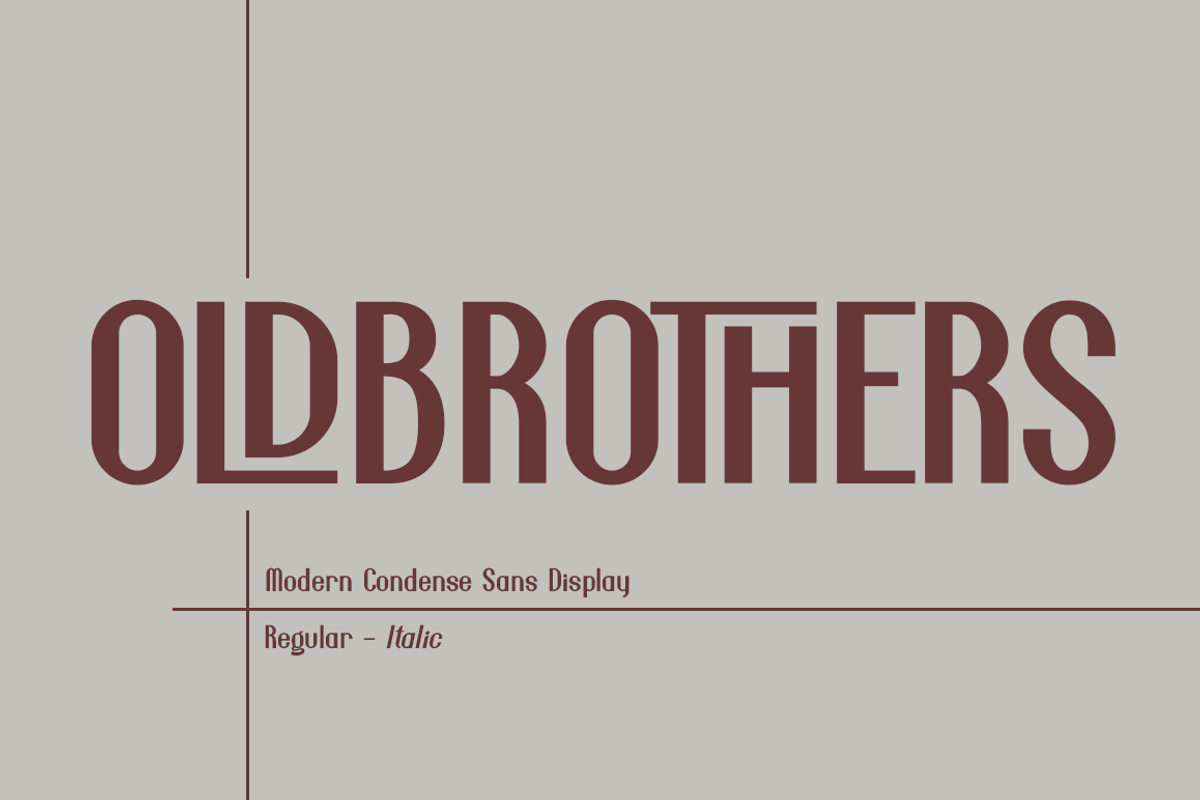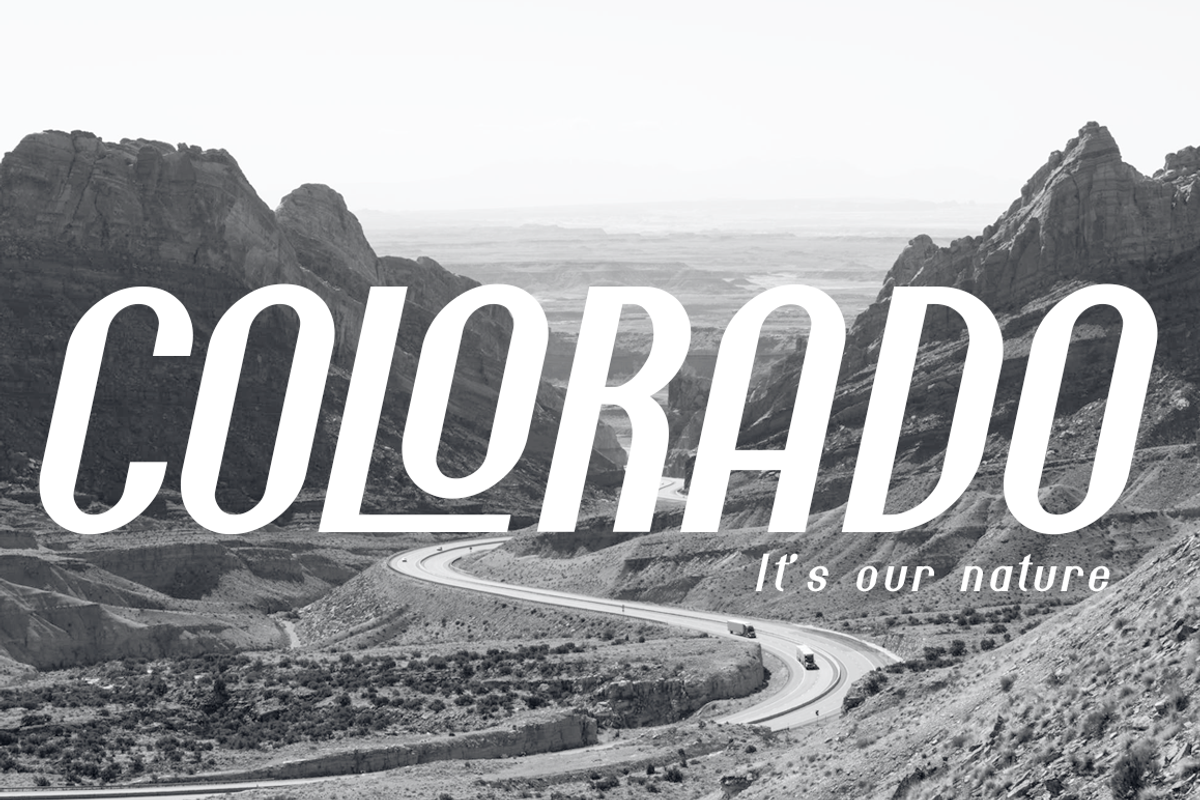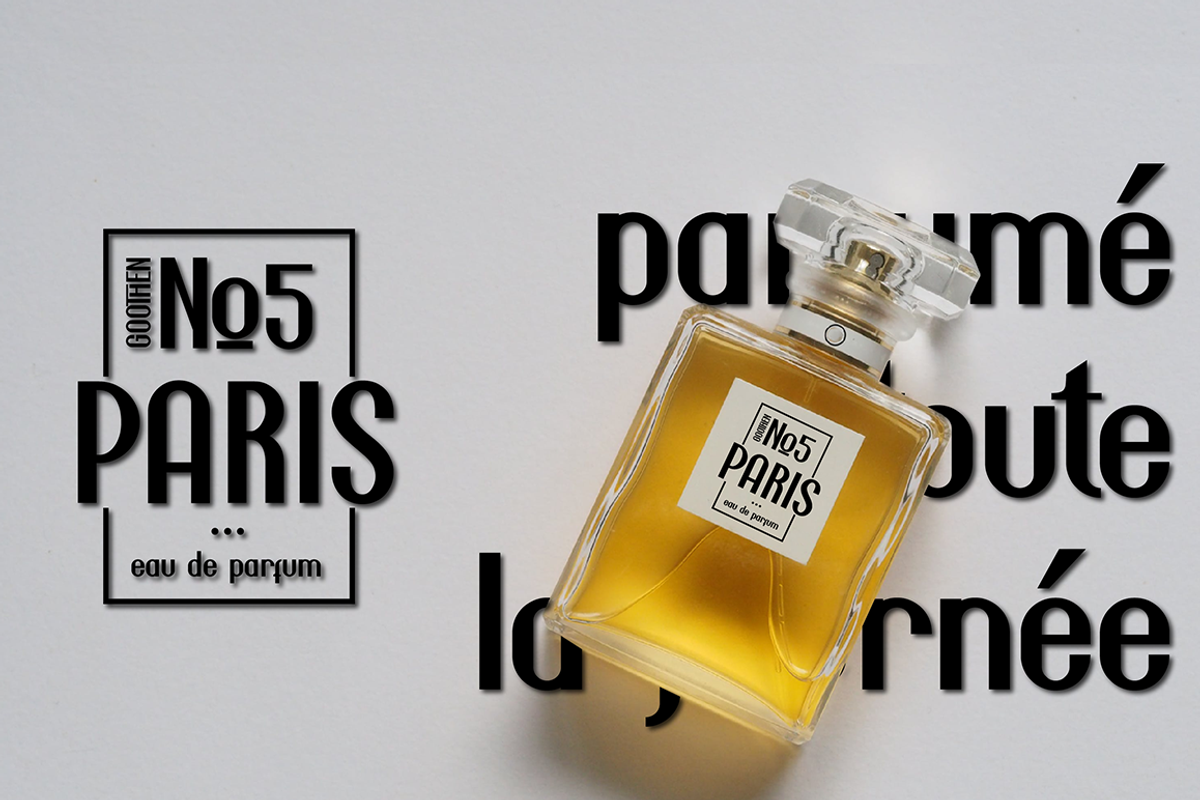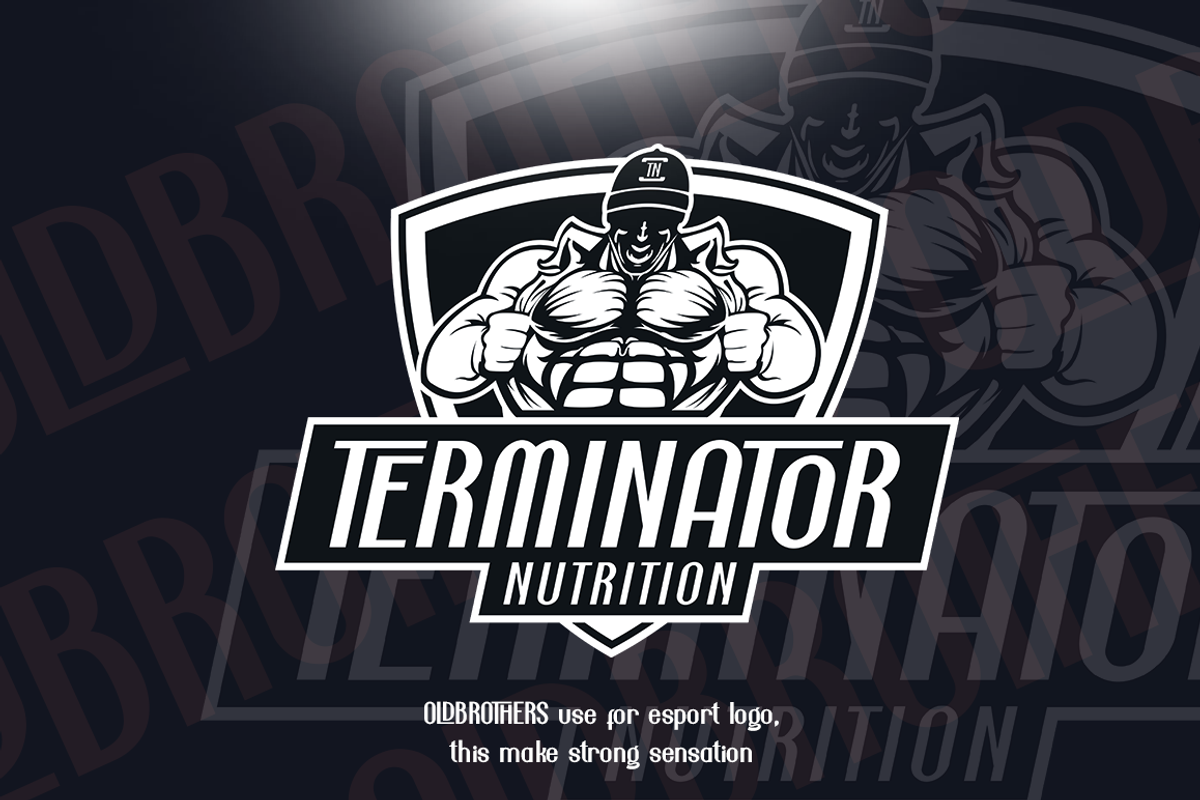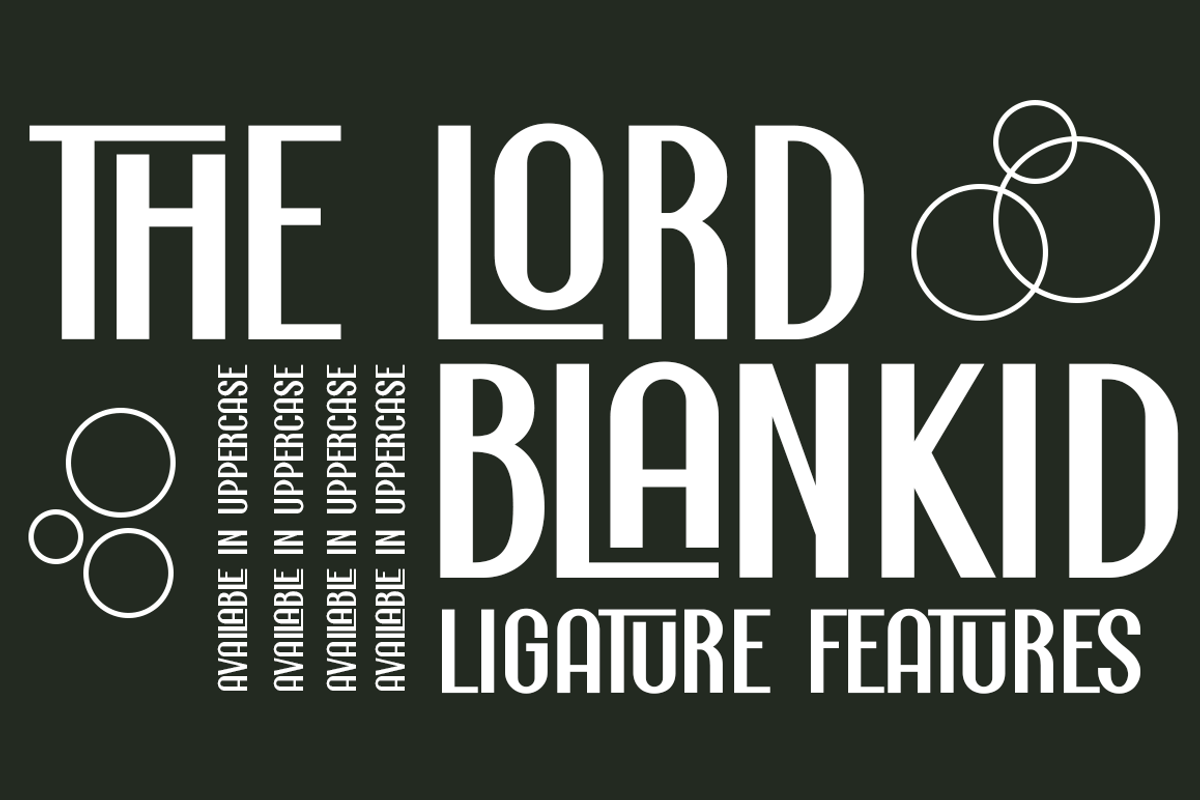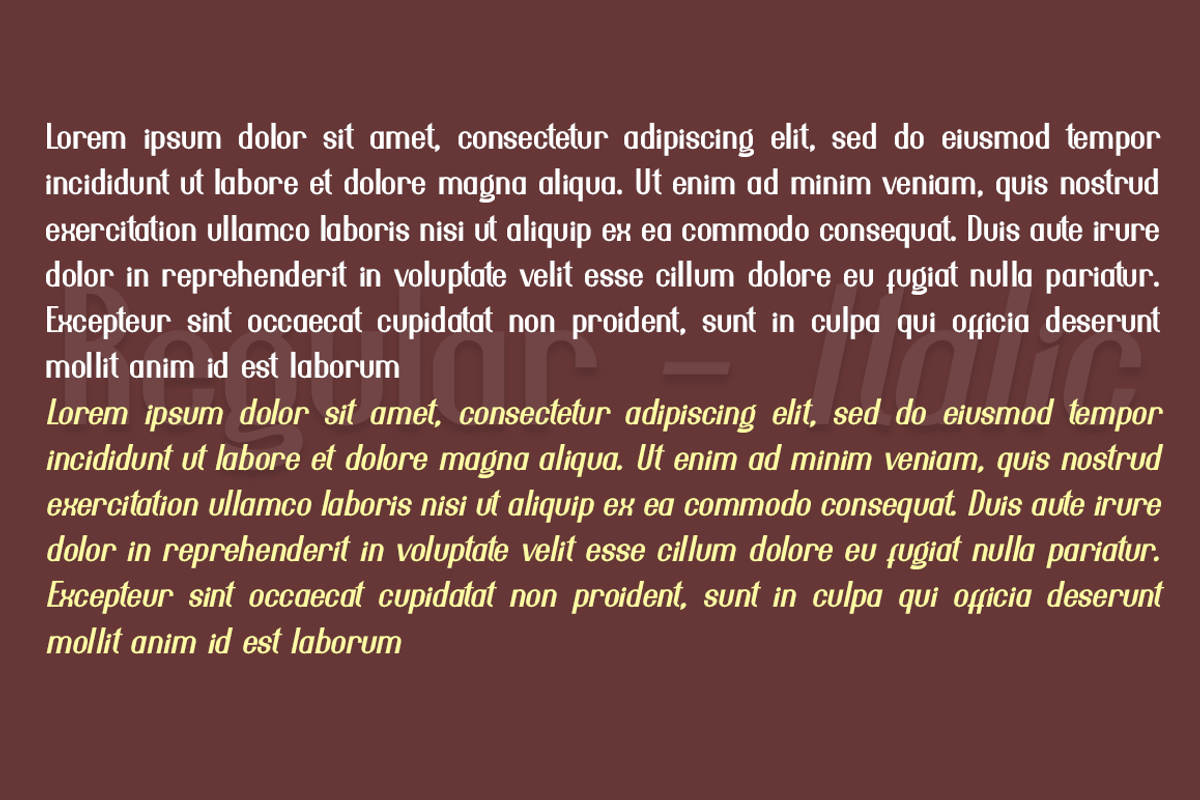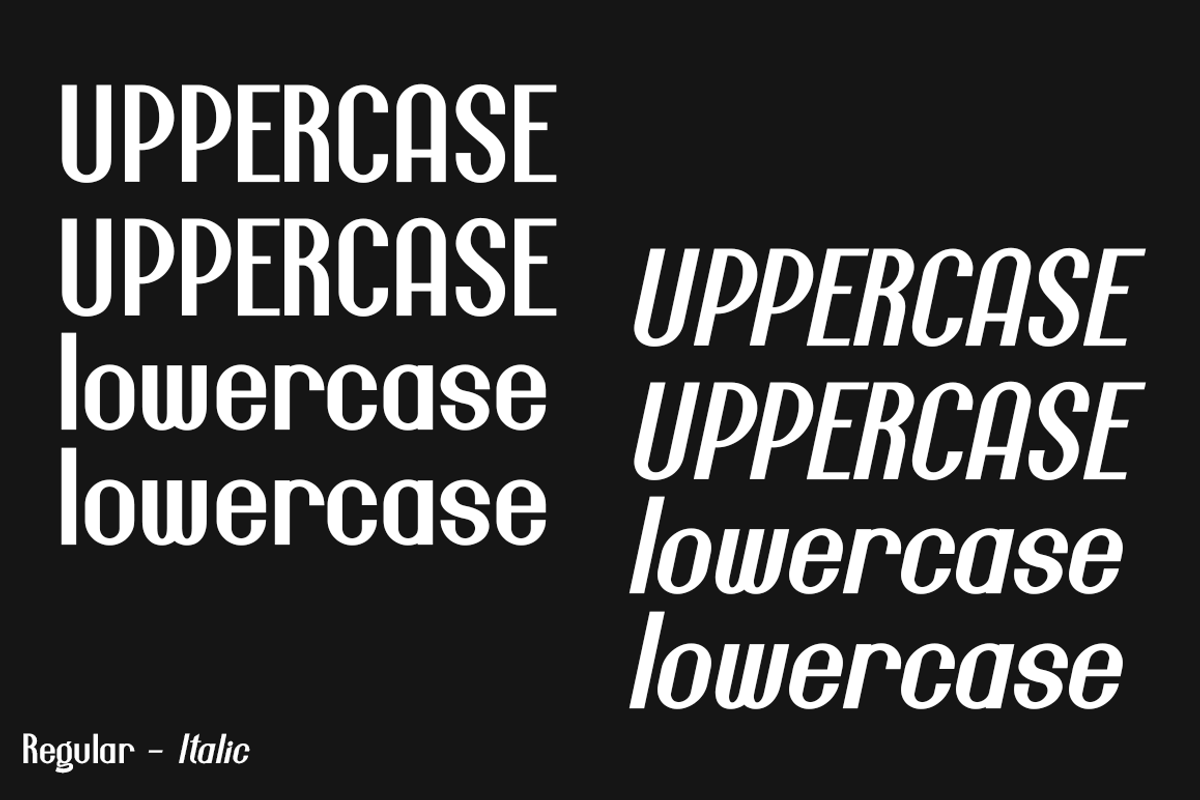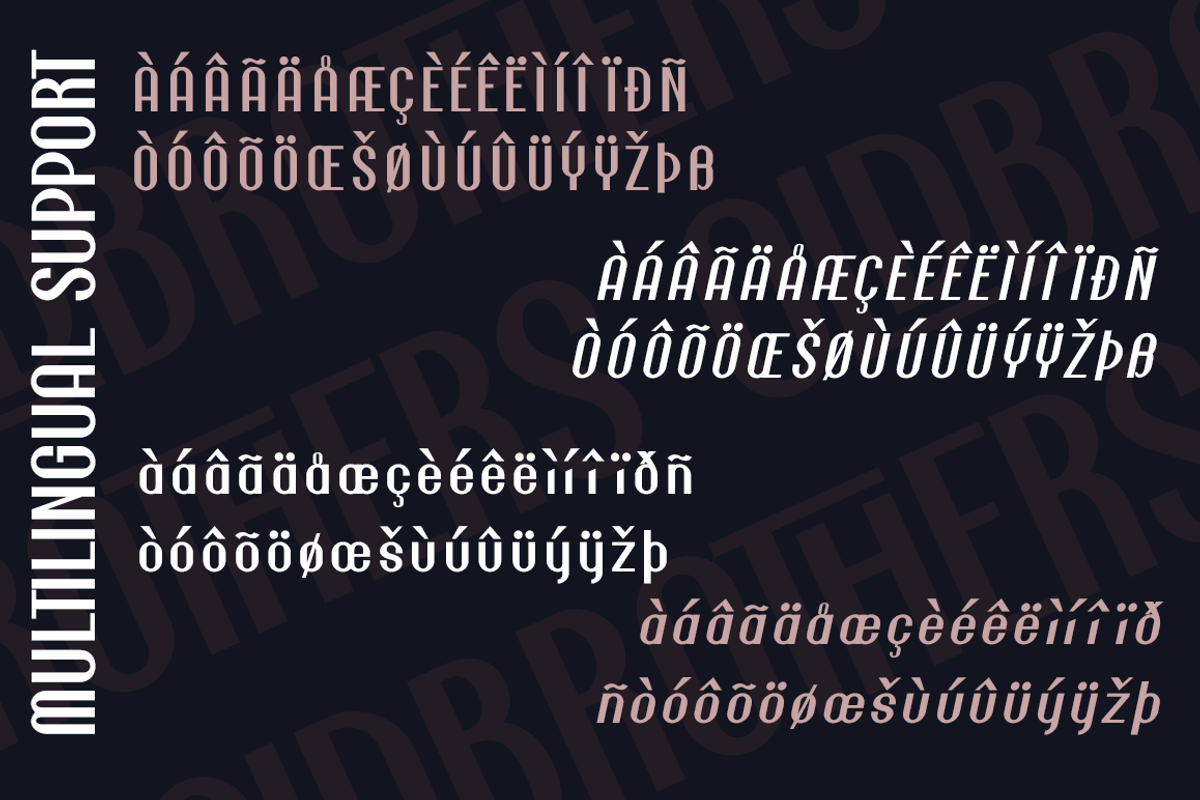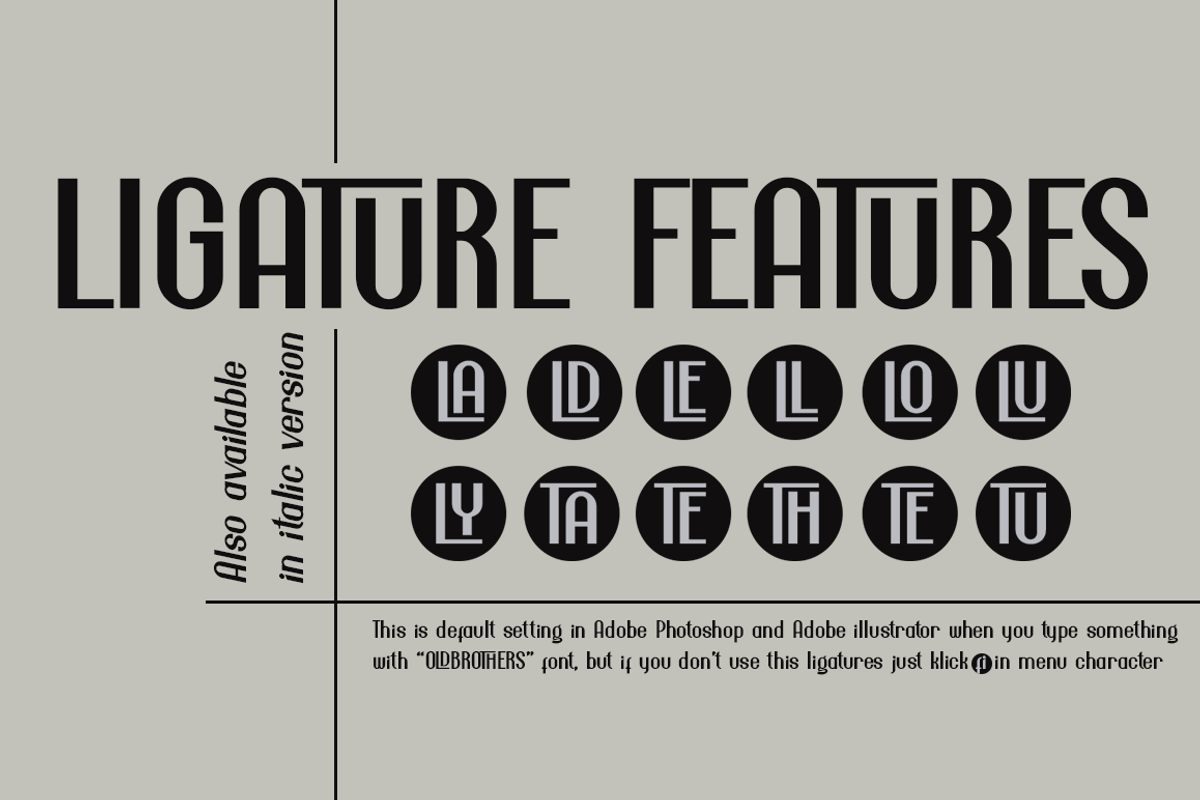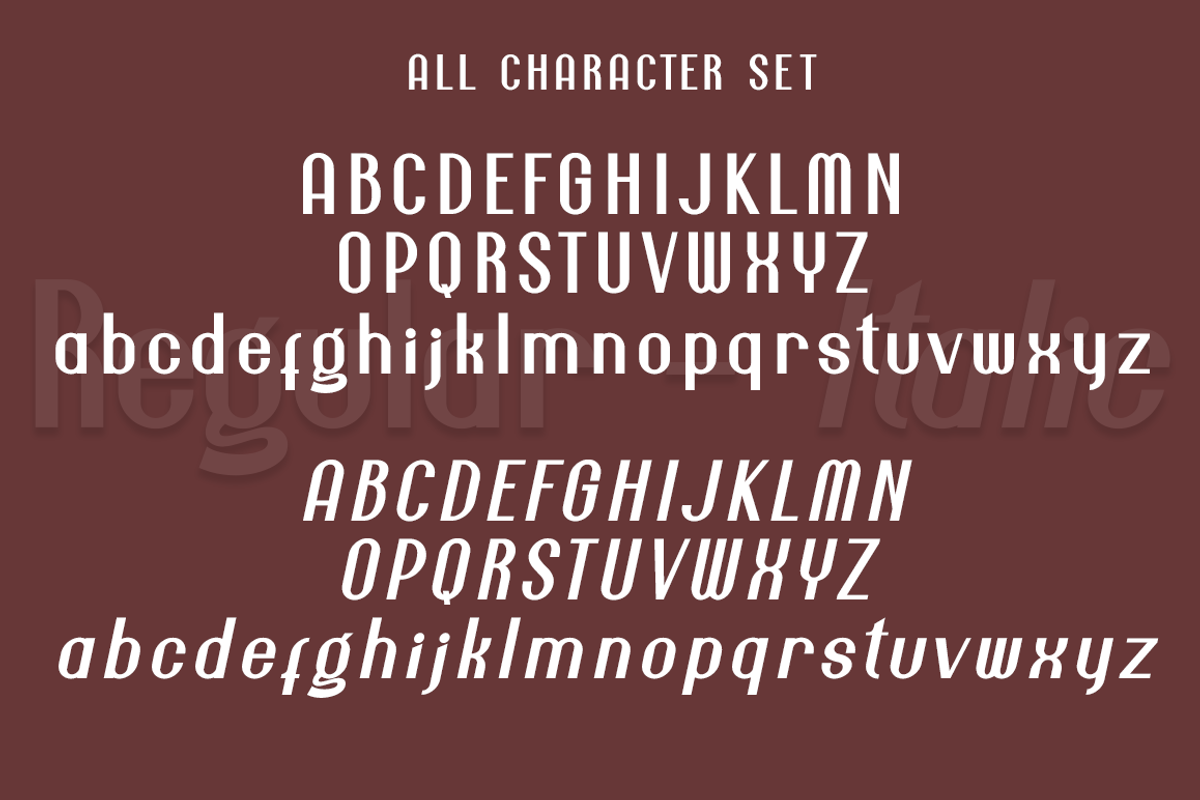
Oldbrothers Condense Sans
Oldbrothers is a Bold elegant modern condense sans style with upper and lowercase feel nice balanced. Its wide range of uppercase ligatures allow versatile design options and works perfectly for headlines, logos, posters, packaging, T-shirts, postcards and much more.
- Regular and Italic version
- Character set A-Z
- Ligatures in Uppercase
- Accented Characters
- Multiple Languages Supported